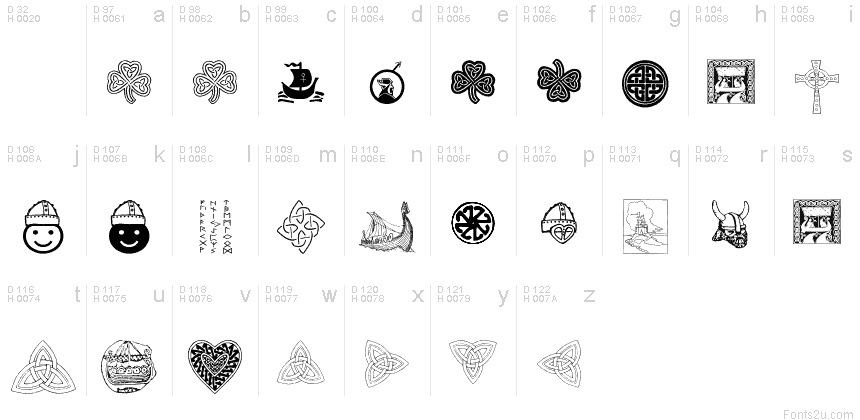
YY Norseman Dingbats by YellowYellow is a free Norse-themed cartoon dingbat font built from chunky emblems and illustrated Viking imagery. The drawings have rough, hand-inked edges and a comic-book bluntness.
Merchandise gives these pictorial symbols a natural role as badges on shirts, patches, and stickers. They can also shape game graphics or event posters, where helmets, beards, and circular rune-like marks support an adventurous historical-fantasy theme. The set is best suited to Viking, mythology, and folk-metal subjects that benefit from imagery rather than conventional lettering.
Includes Celtic and Viking Symbols.